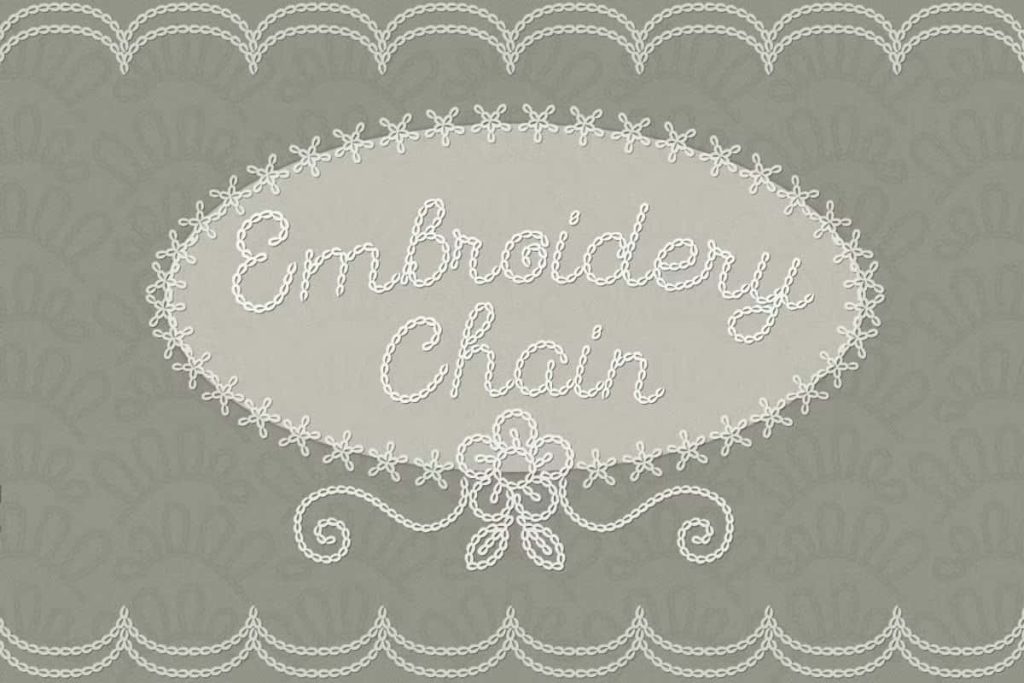
Embroidery Cursive Chainstitch Font for Bold Handcrafted Designs
Embroidery Cursive Chainstitch is a unique and expressive stitched-style font designed to replicate the look of real chain stitch embroidery. This typeface combines flowing cursive lettering with a bold and chunky structure, allowing your designs to maintain clarity and impact even at smaller sizes. Inspired by traditional needlework, this font brings a handcrafted feel into modern creative projects.
Authentic Chain Stitch Embroidery Style
This font captures the texture and rhythm of real embroidery stitching. Each character reflects the looping pattern of chain stitches, creating a consistent and visually engaging appearance. Instead of flat digital shapes, the font introduces depth and detail that mimic the tactile quality of stitched fabric.
Designers can use this font to recreate the charm of handmade crafts without the need for physical stitching. The result is a clean yet textured design that feels both artistic and practical.
Bold and Chunky for Strong Visibility
Embroidery Cursive Chainstitch stands out because of its bold and chunky letterforms. This design choice ensures that your text remains readable across different sizes and applications. Whether you use it for small labels or larger headlines, the font maintains its structure and visual strength.
The thicker strokes also enhance the embroidered effect, making each letter appear more defined and impactful. This makes the font especially useful for projects that require both style and legibility.
Perfect for Craft and DIY Projects
This font works exceptionally well in craft-based designs. Its stitched appearance aligns perfectly with DIY aesthetics, allowing you to create cohesive and visually appealing projects. Use it for embroidery patterns, sewing labels, handmade packaging, and personalized gifts.
The font helps you bring a consistent handmade theme across your work, making it ideal for hobbyists and professional crafters alike.
Ideal for Special Occasions and Events
Embroidery Cursive Chainstitch adds warmth and charm to event-related designs. Its soft yet bold appearance makes it a great choice for baby showers, weddings, and other celebrations. You can use it to design invitations, signage, and decorative elements that feel personal and thoughtful.
The cursive flow adds elegance, while the stitched texture introduces a playful and creative touch. This combination helps you create memorable designs that stand out.
Enhance Home Decor and Creative Styling
If you enjoy decorating or styling interior spaces, this font offers endless possibilities. You can use it to create wall art, custom prints, and decorative labels that match a handmade aesthetic. Its embroidered look adds character to home decor projects, making each piece feel unique.
The font also works well for seasonal decorations and themed designs, allowing you to adapt it to different creative concepts throughout the year.
Includes Decorative Motifs and Embellishments
One of the standout features of Embroidery Cursive Chainstitch is the inclusion of decorative elements. The font comes with a range of embellishments and motifs that you can access directly from your keyboard. These additional characters allow you to enhance your designs with borders, accents, and creative details.
You can combine these elements with the main letterforms to create more dynamic and visually rich compositions. This feature gives you greater flexibility and control over your design process.
Versatile for Print and Digital Applications
Although inspired by traditional embroidery, this font performs well in both print and digital formats. You can use it for physical products such as fabric prints, stickers, and packaging, as well as digital designs like social media graphics and online branding.
Its bold structure ensures that the stitched effect remains visible across different mediums, helping you maintain a consistent visual identity.
Key Features of Embroidery Cursive Chainstitch Font
- Chain stitch-inspired cursive lettering with realistic texture
- Bold and chunky design for strong readability
- Perfect for crafts, DIY projects, and handmade designs
- Includes decorative motifs and embellishments
- Suitable for weddings, baby showers, and home decor
Bring Handcrafted Style into Your Designs
Embroidery Cursive Chainstitch font allows you to transform your ideas into designs that feel warm, creative, and authentic. Its combination of cursive elegance and stitched texture makes it a powerful tool for anyone looking to create visually engaging and handcrafted-inspired work.
If you want to add depth, personality, and a handmade touch to your projects, this font provides everything you need. Use it to create designs that feel unique, expressive, and full of character.